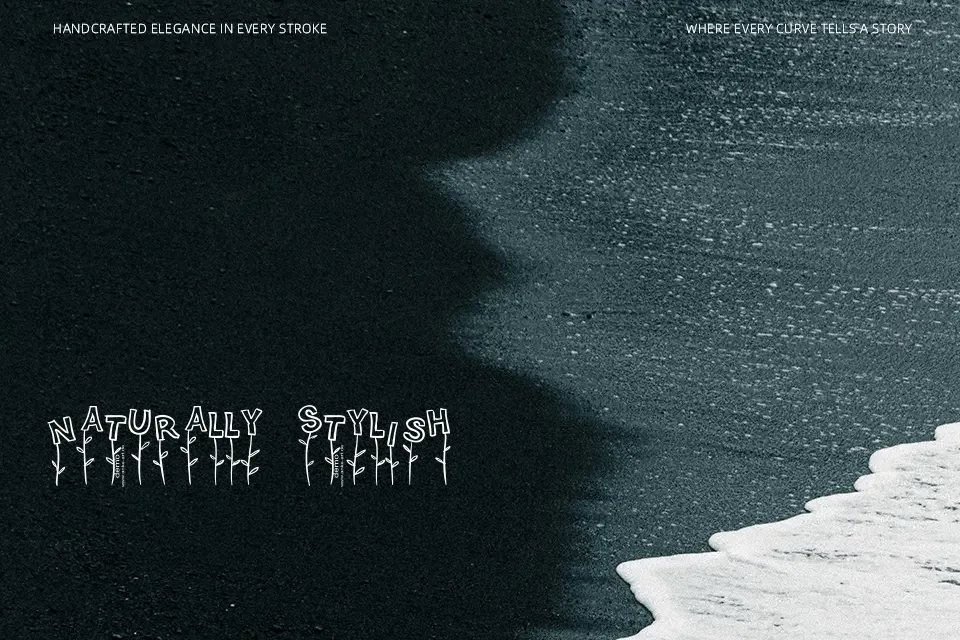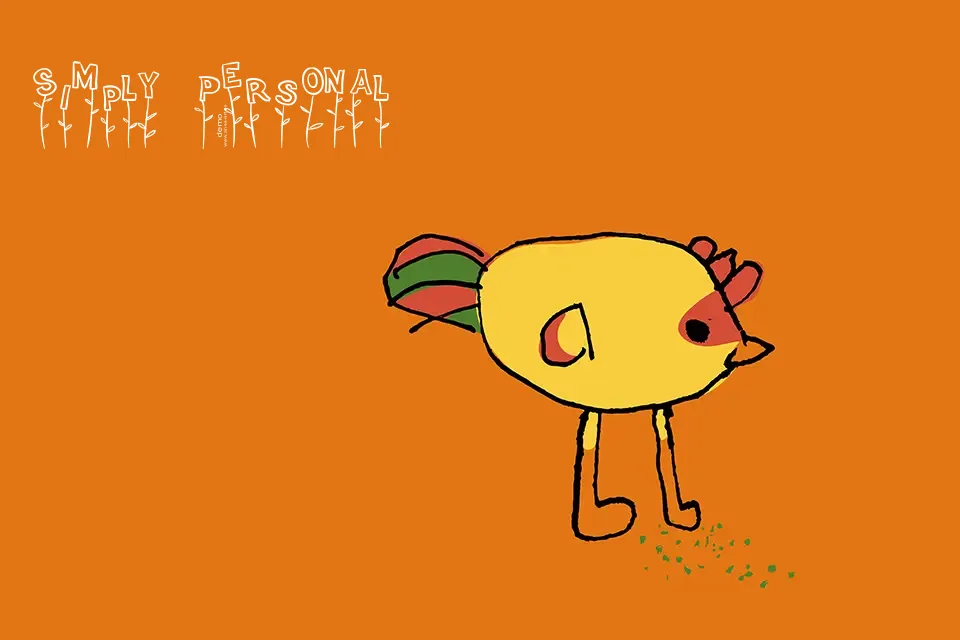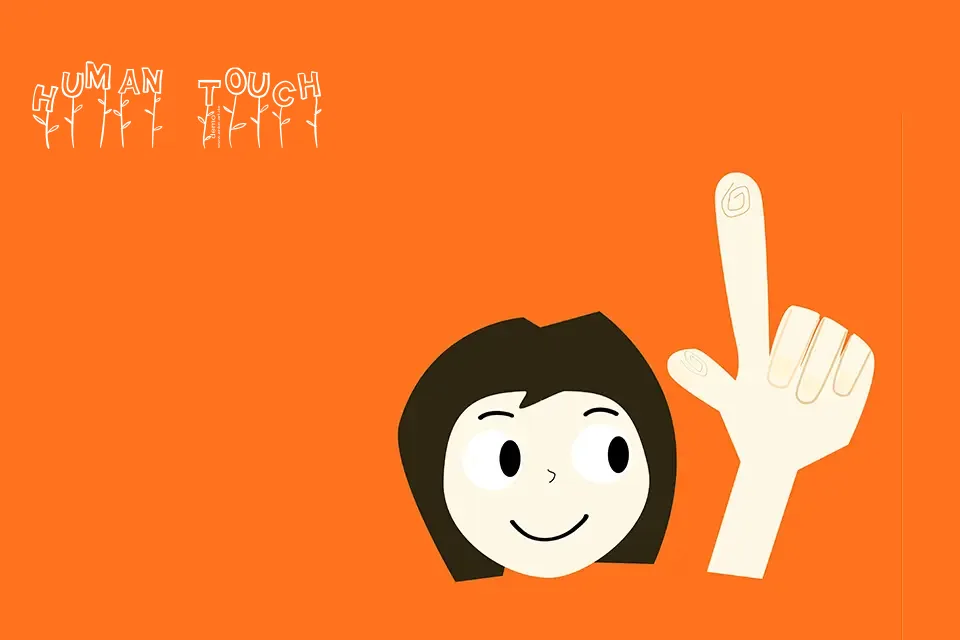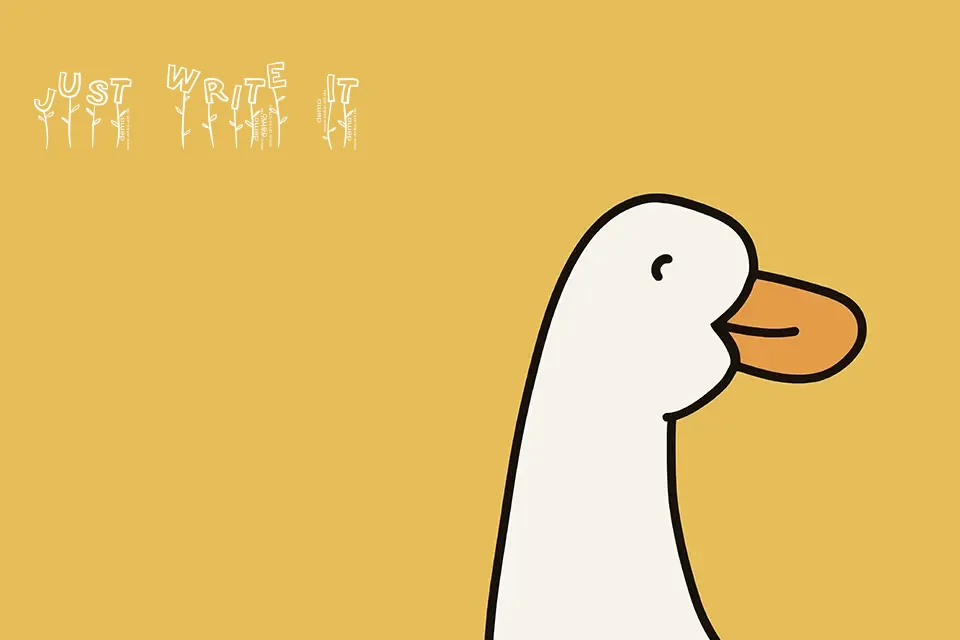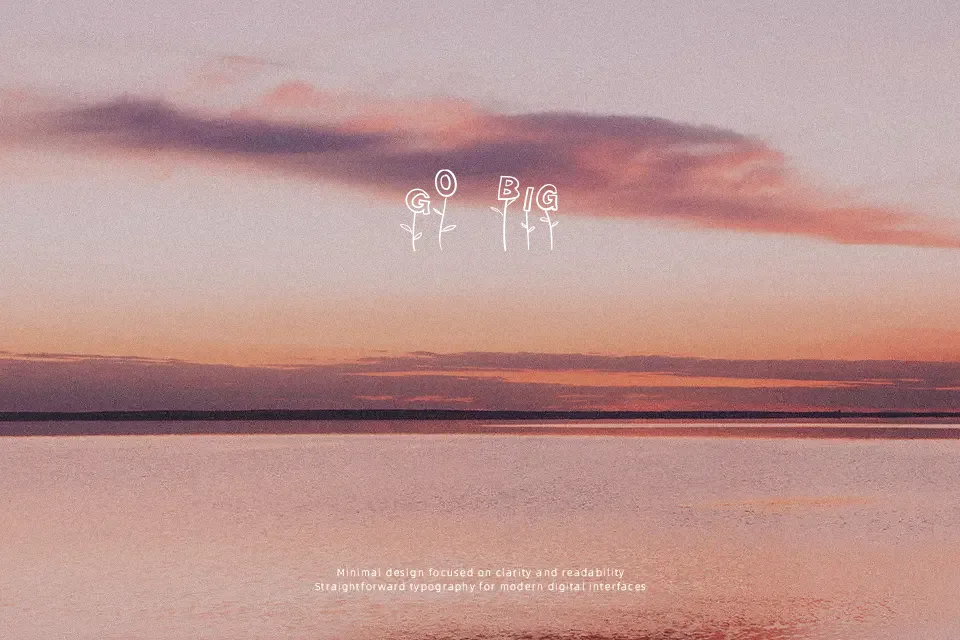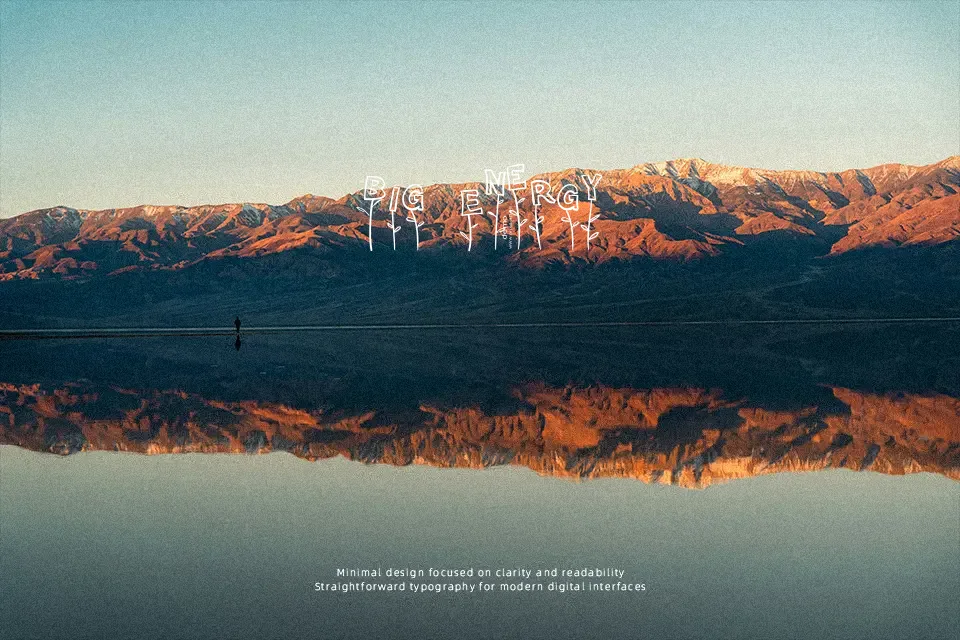
Typo Garden Demo Font
Typo Garden Demo Font uses irregular outlined letterforms with narrow, spindly extensions and small leaf-like details integrated around the baseline. The uppercase characters appear intentionally uneven in height and width, while the open interiors and light strokes keep individual forms distinguishable at display sizes. Spacing feels loose enough for short words and mixed-case arrangements, although the decorative additions interrupt a steady reading rhythm. It works best for garden event graphics, children’s craft materials, and themed packaging. The details give headlines a recognizable silhouette, but they become less clear in small text or extended passages.
Best For: garden event posters,children’s craft packaging,plant shop signage,seasonal product labels
Perfect for headline, kids, and packaging, with a artistic and decorative style.